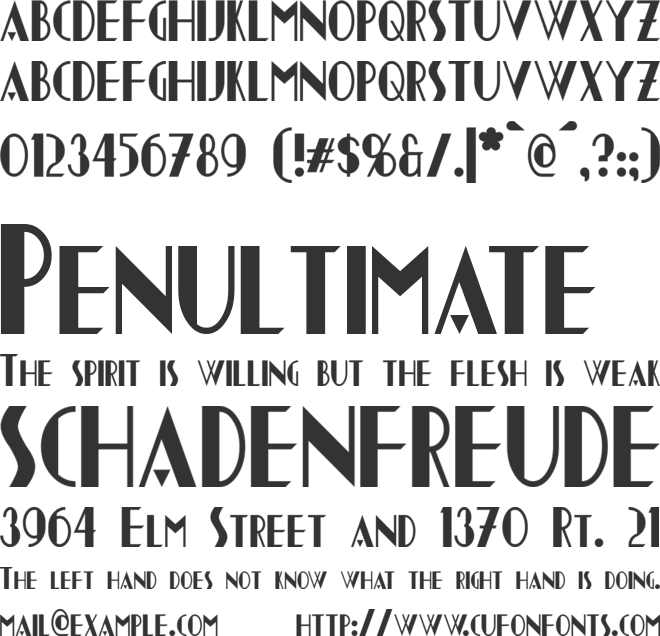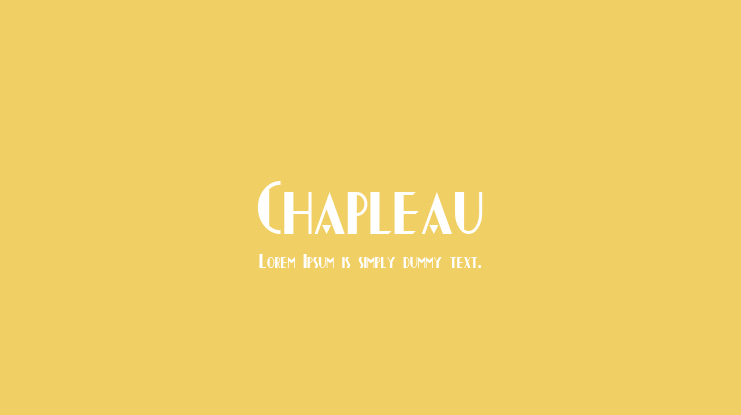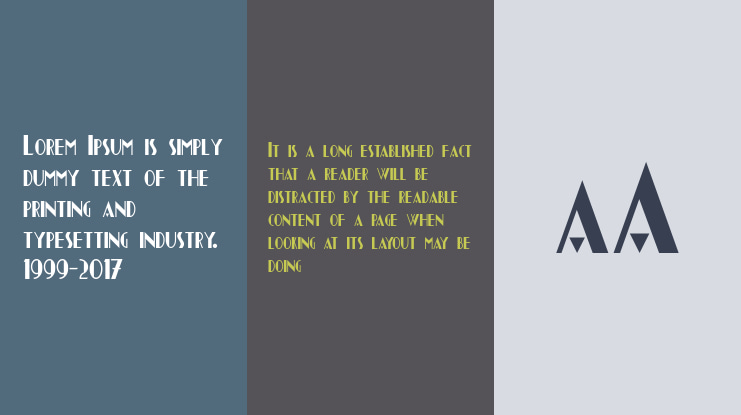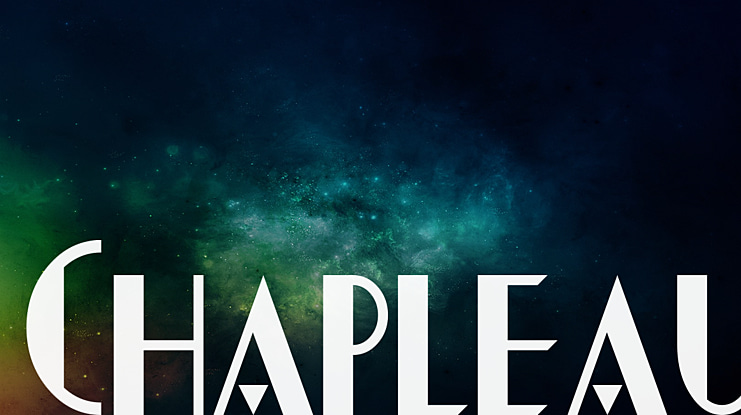
Chapleau Font Family
Neale Davidson
A retro-style font based on marquee lettering and pulp covers of the 1920s. Includes accent characters, full alphabet, and Euro symbol. Includes bold and italic versions.
- Added oe and per-thousand glyphs
- Spacing cleanup